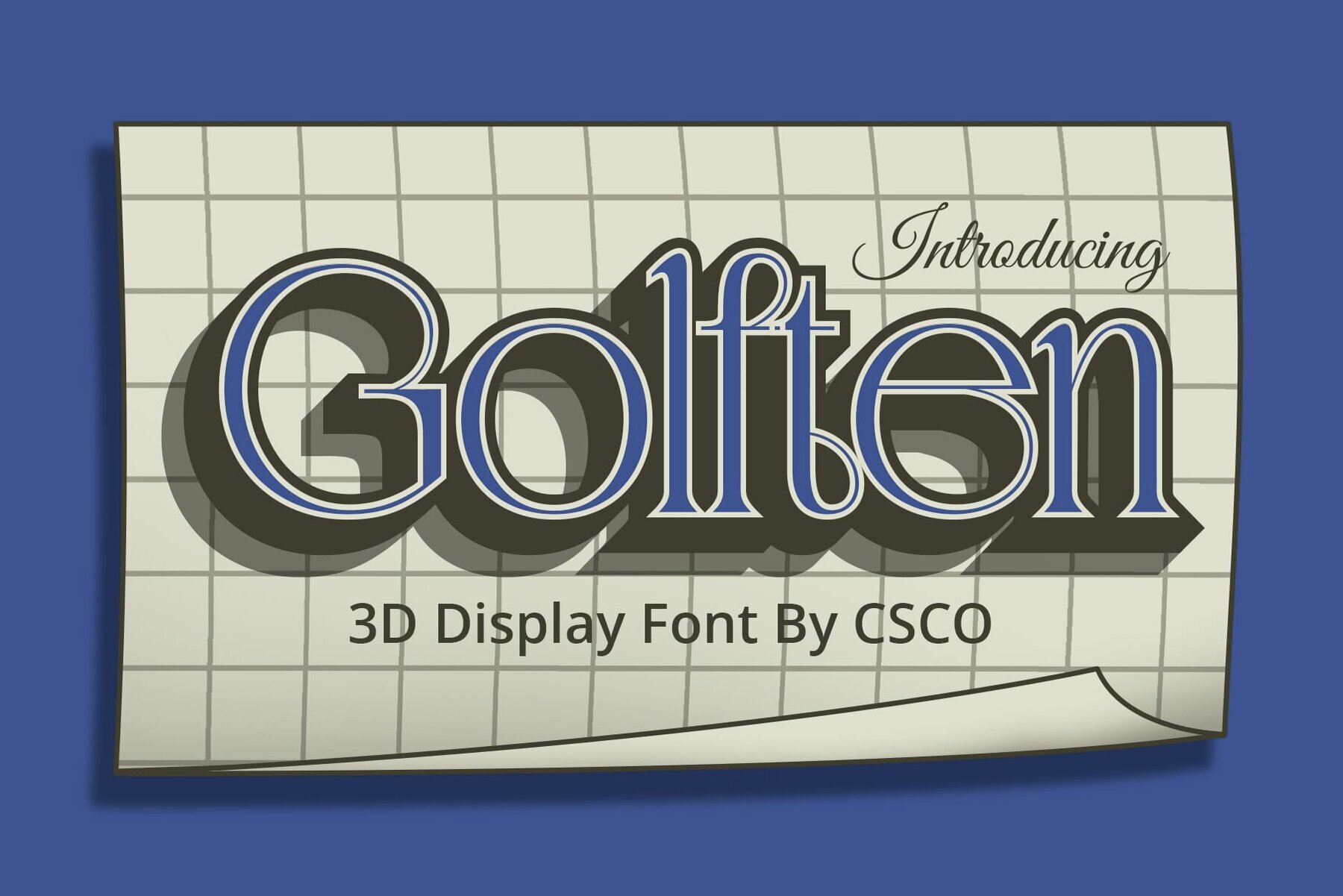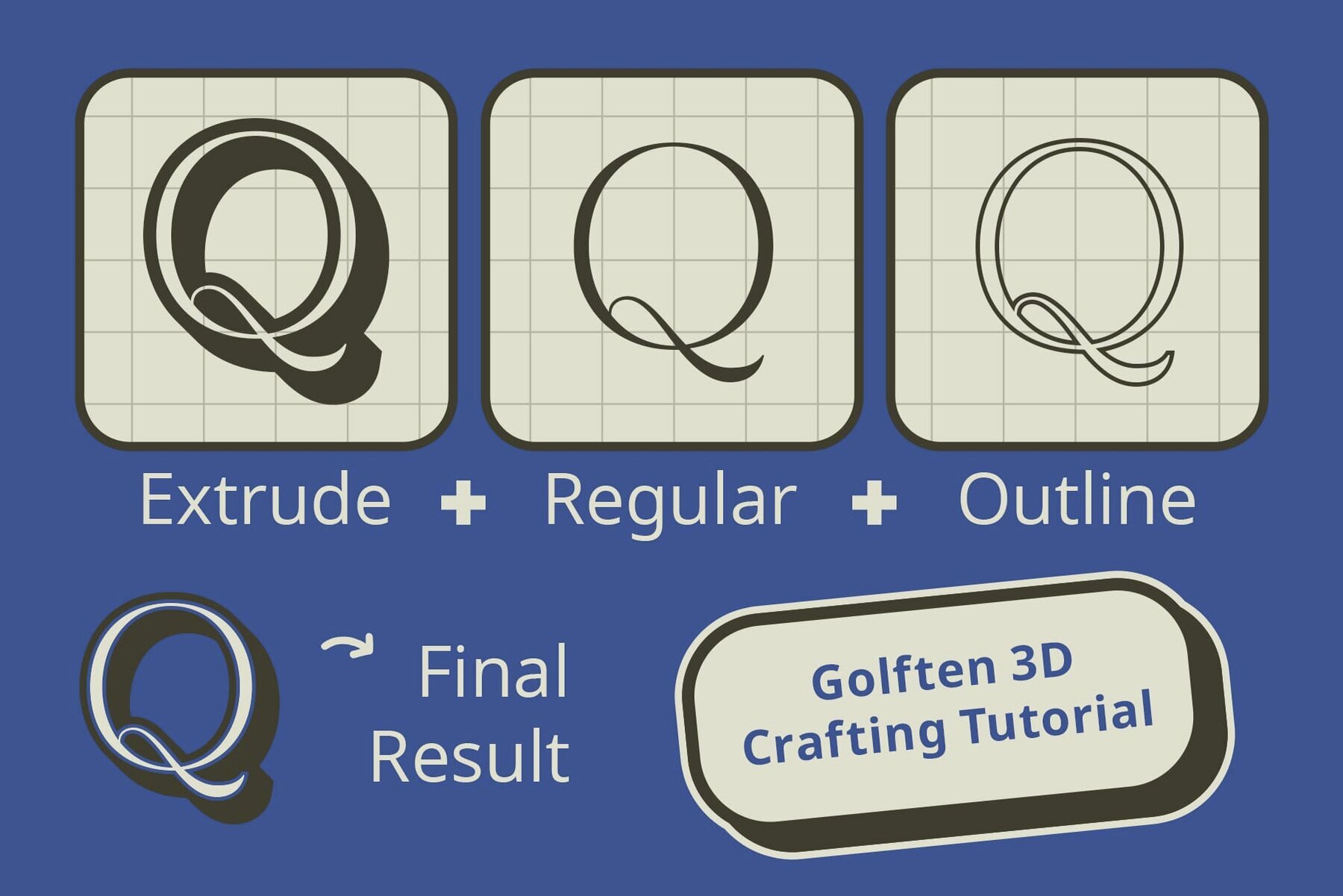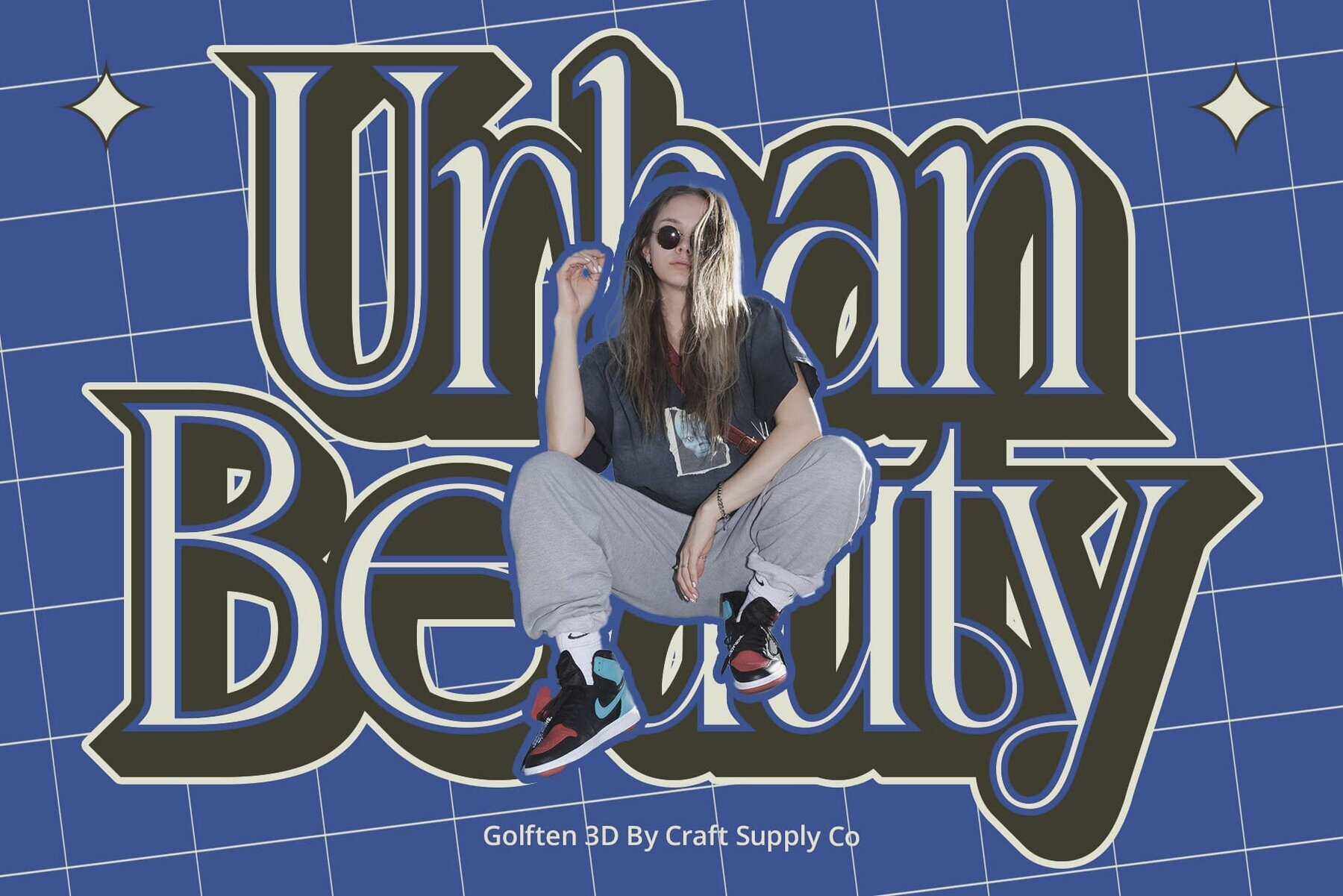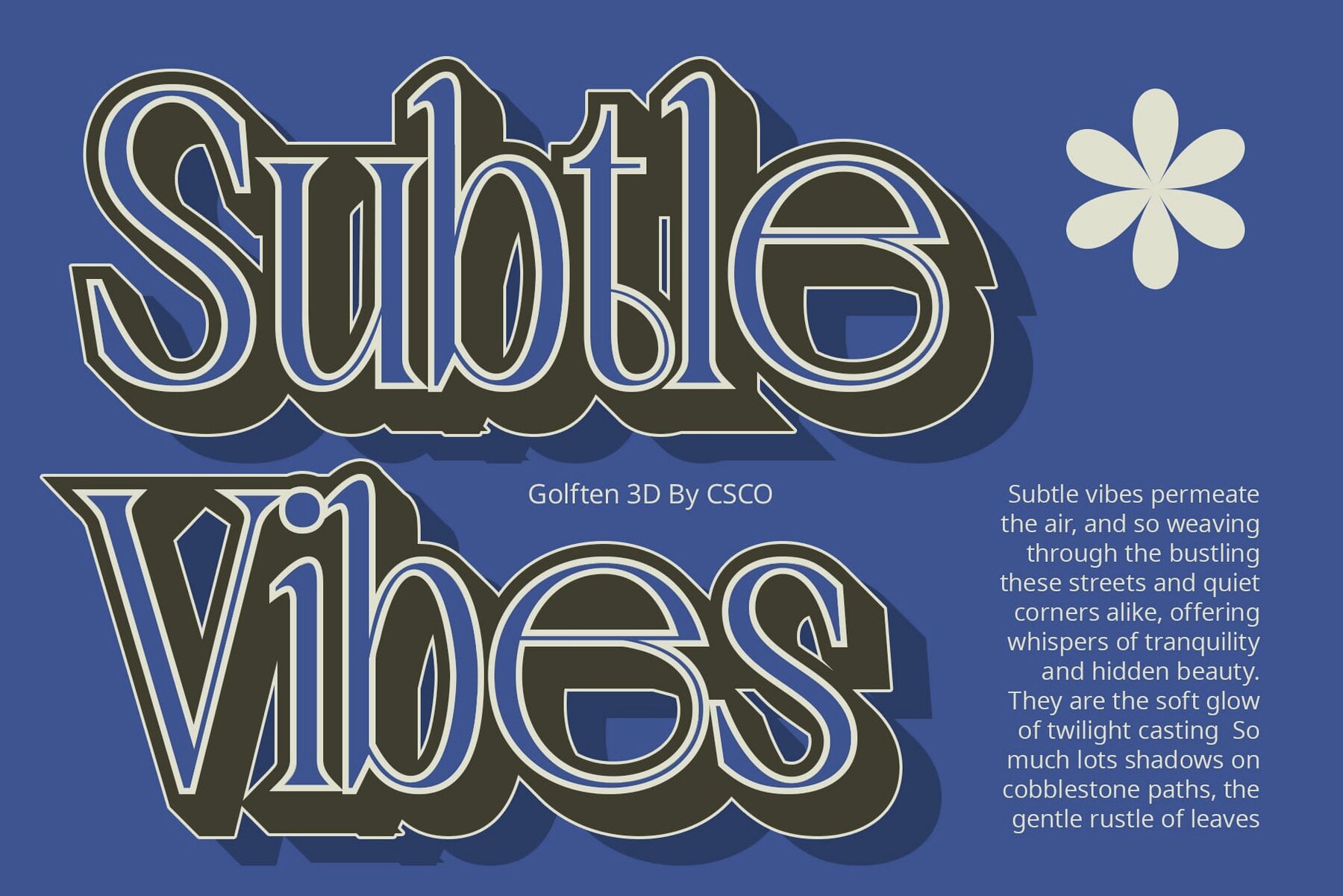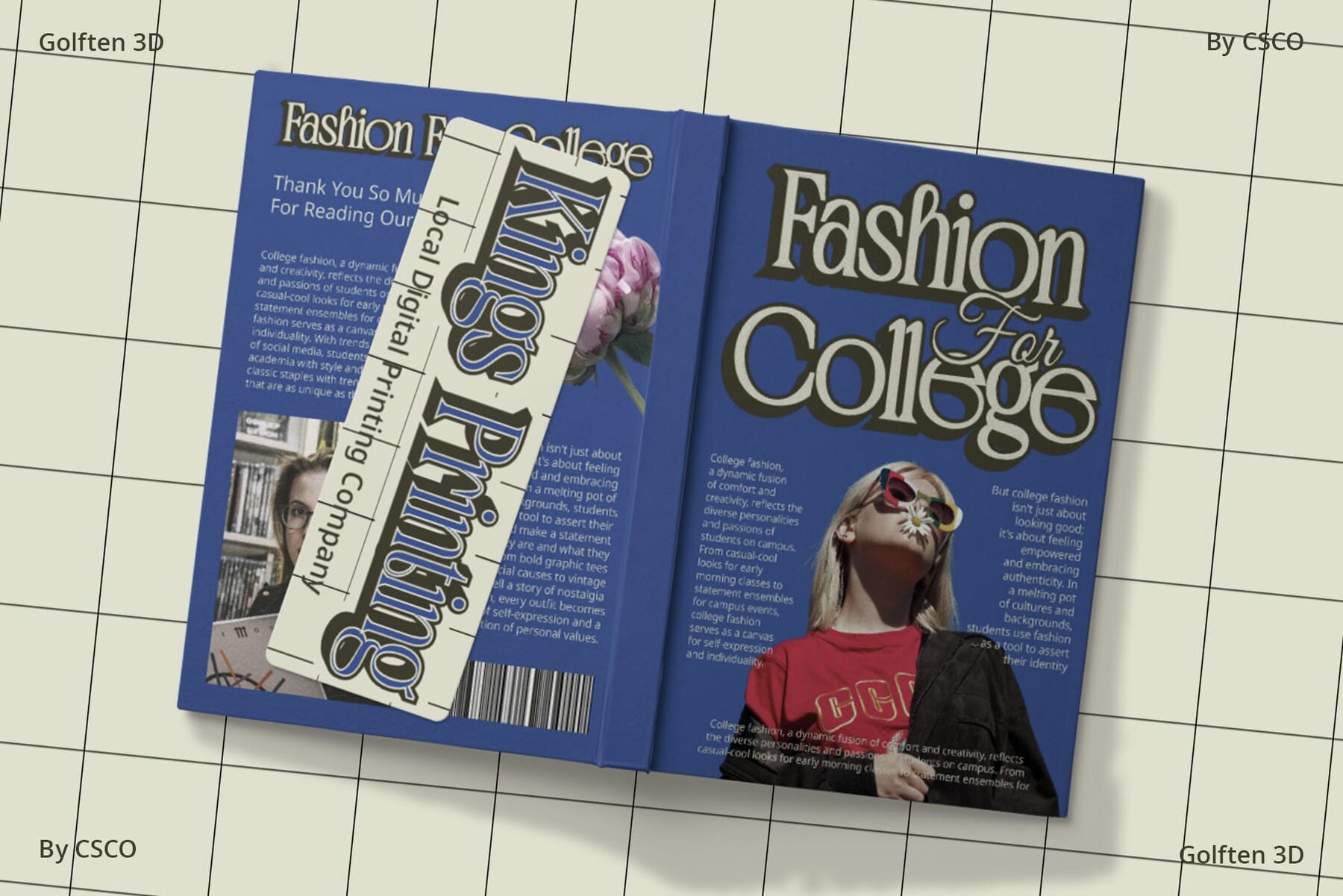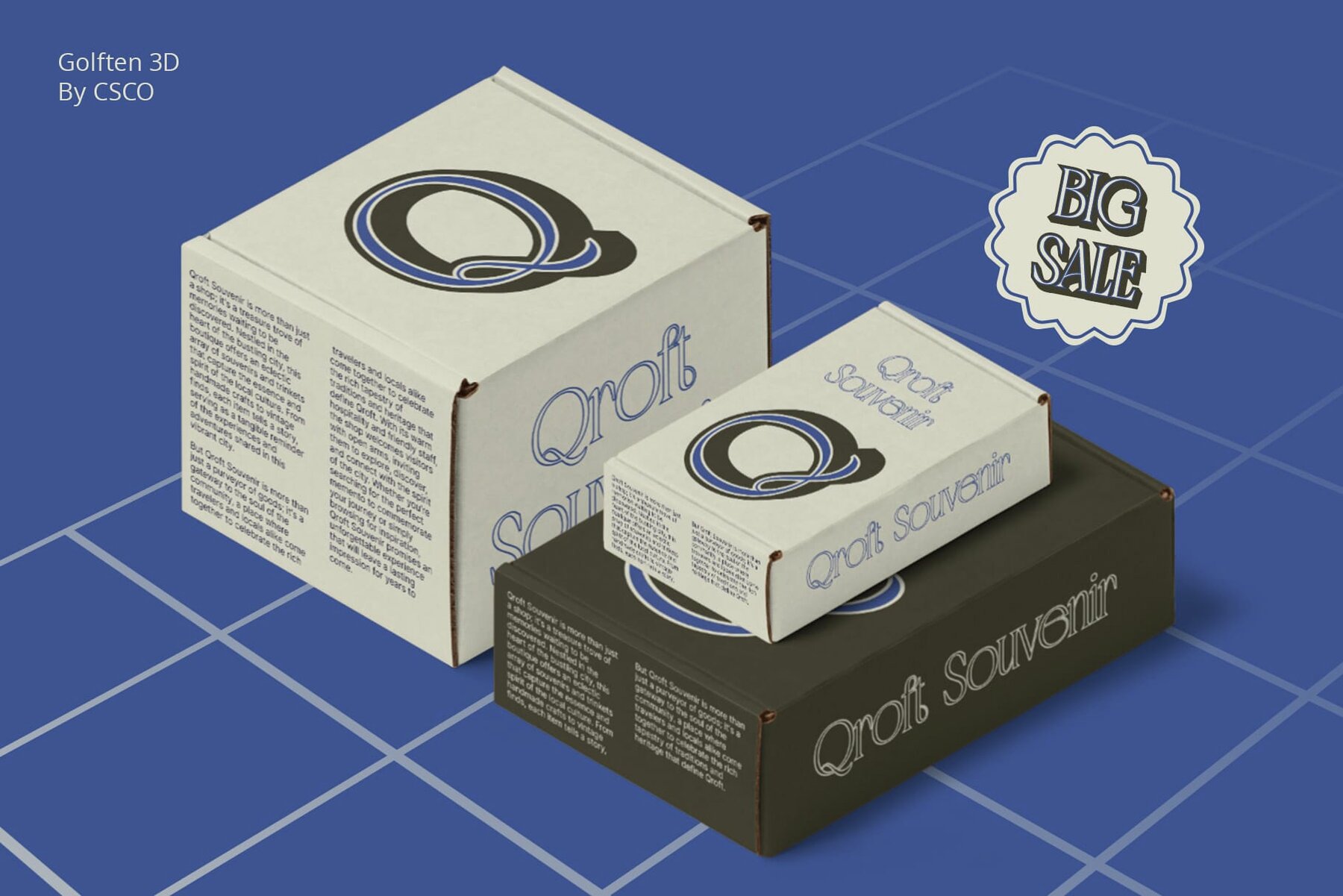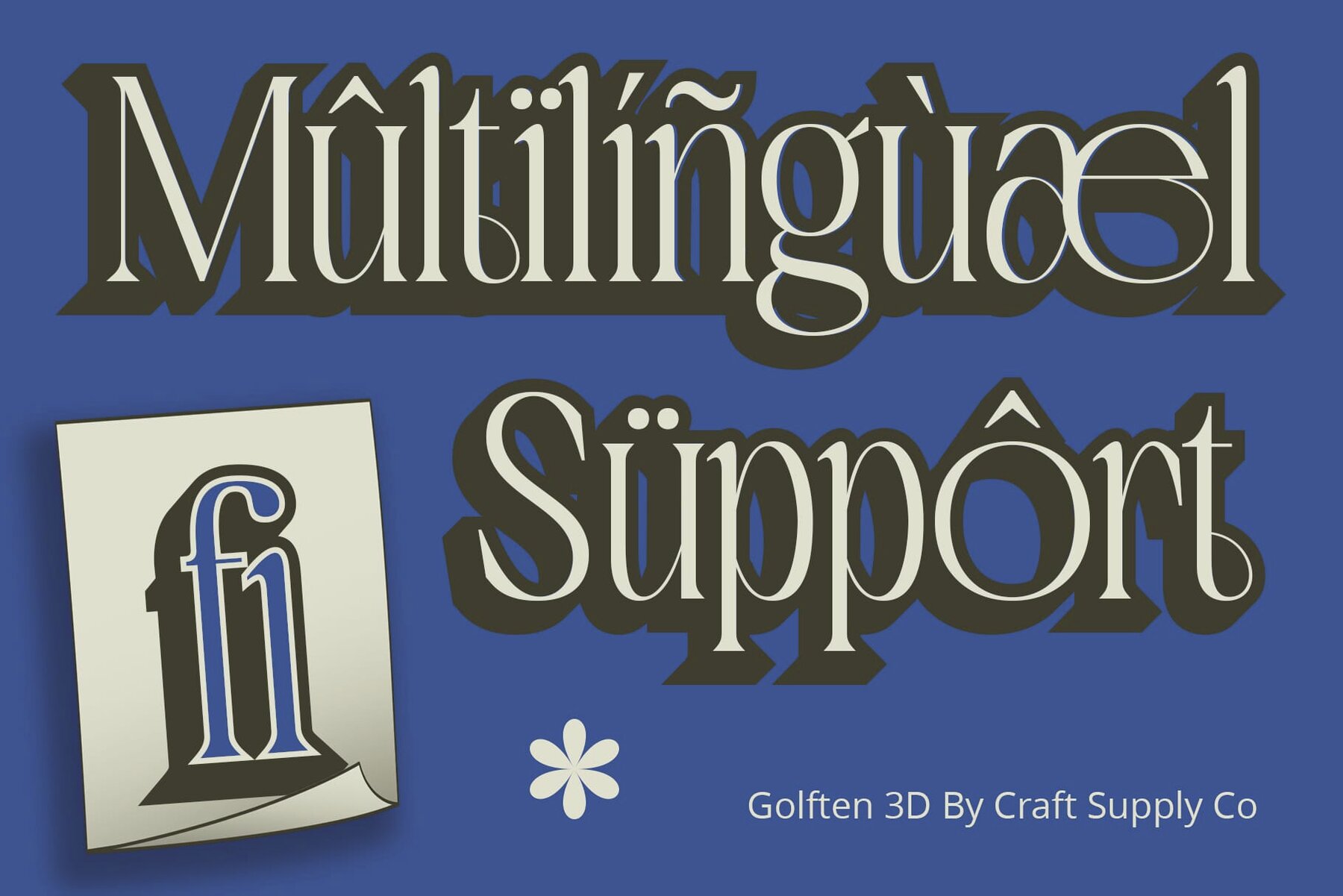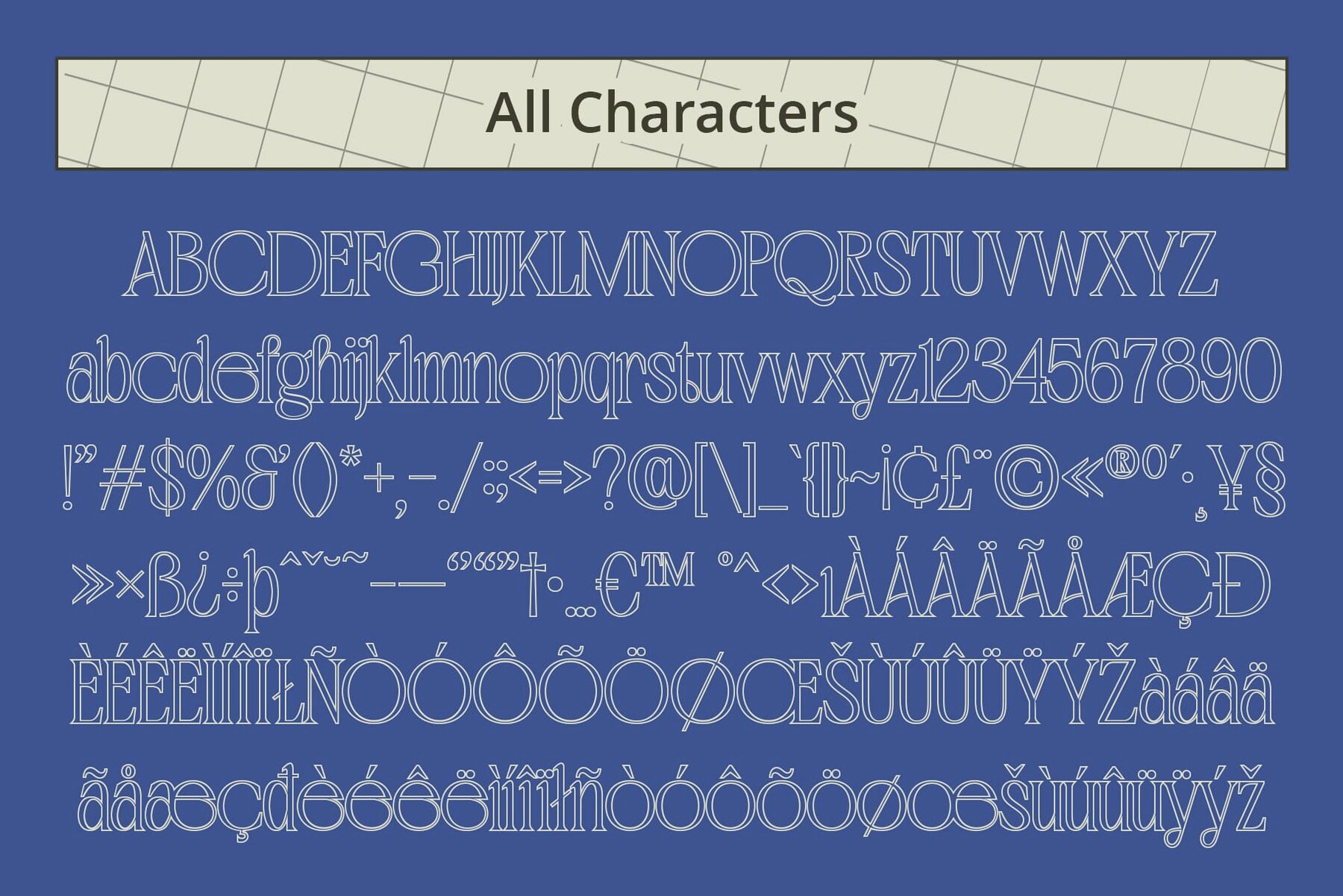
Golften 3D Font
Golften 3D draws inspiration from the intricate forms and organic shapes of the Art Nouveau movement. Its design echoes the elegance and fluidity characteristic of this iconic art style.
- Numerals & Punctuations (OpenType Standard)
- Accents (Multilingual characters)
With captivating 3D effects, each letter emerges with depth and dimension, adding a contemporary twist to its vintage-inspired aesthetic. Perfect for eye-catching displays, this font excels in various contexts, from posters to packaging. Its striking appearance ensures that your message commands attention with style and sophistication.
Whether used in branding, advertising, or digital design, its fusion of Art Nouveau charm and 3D brilliance lends a unique flair to any project. This font stands as a testament to the harmonious blend of tradition and modernity.